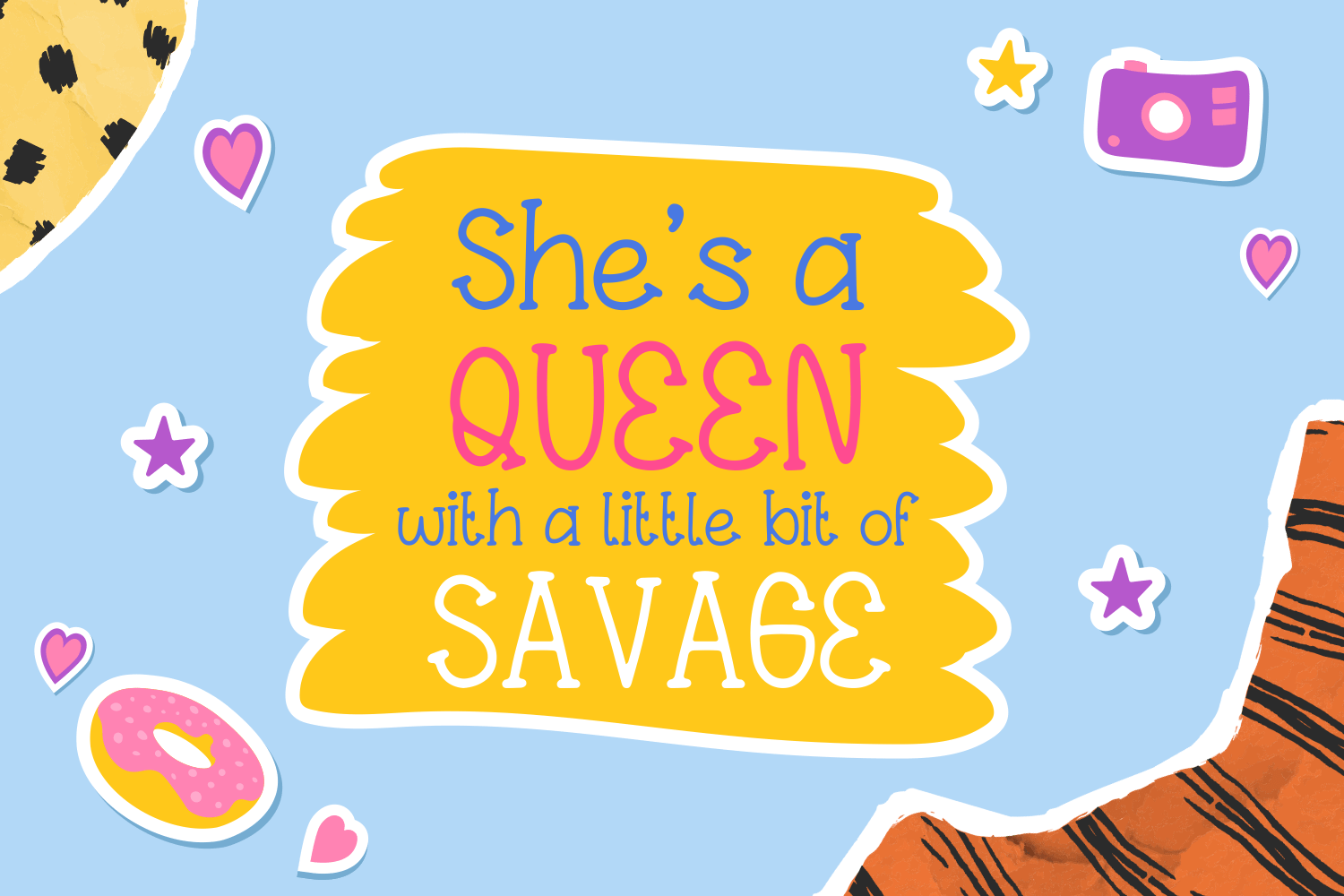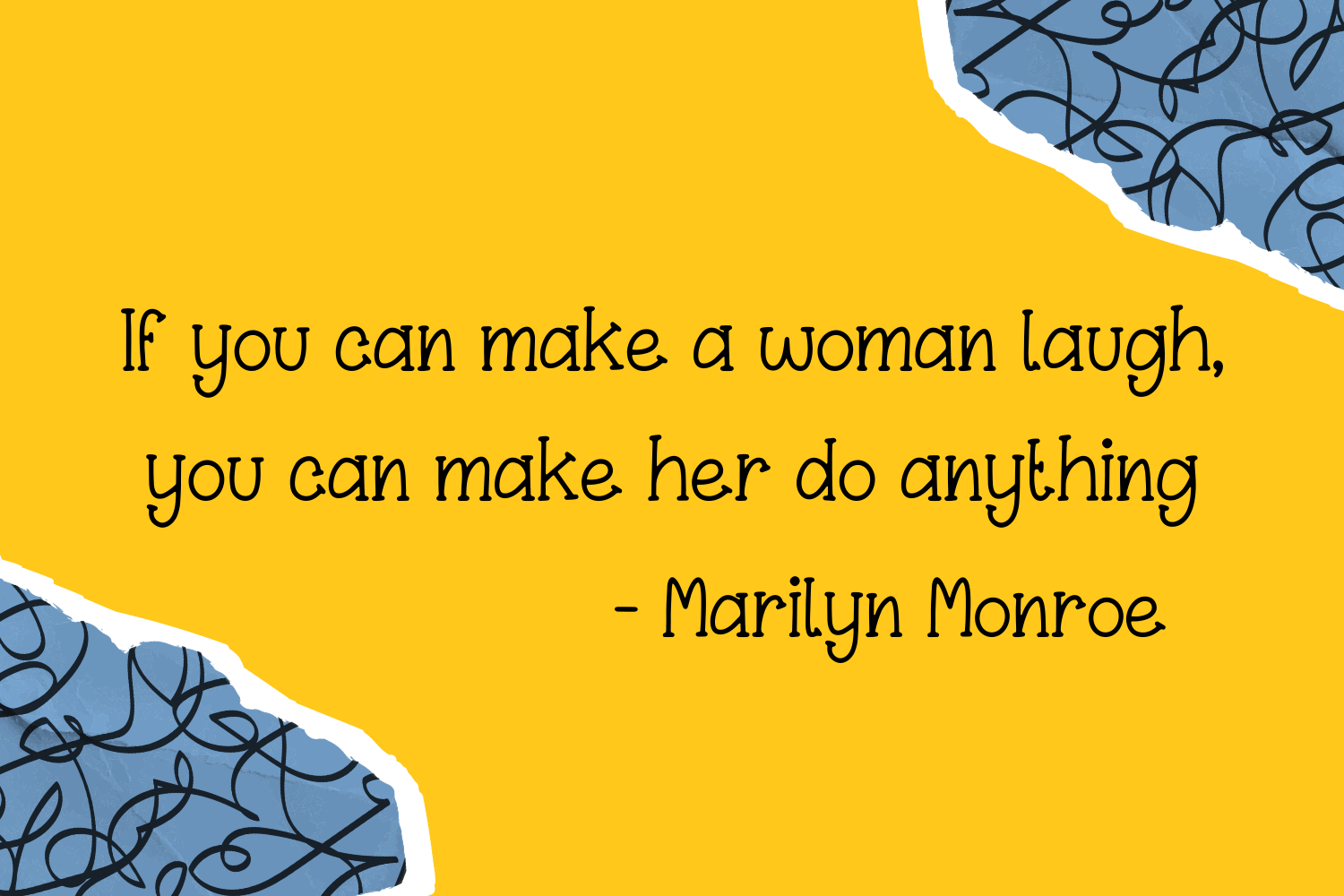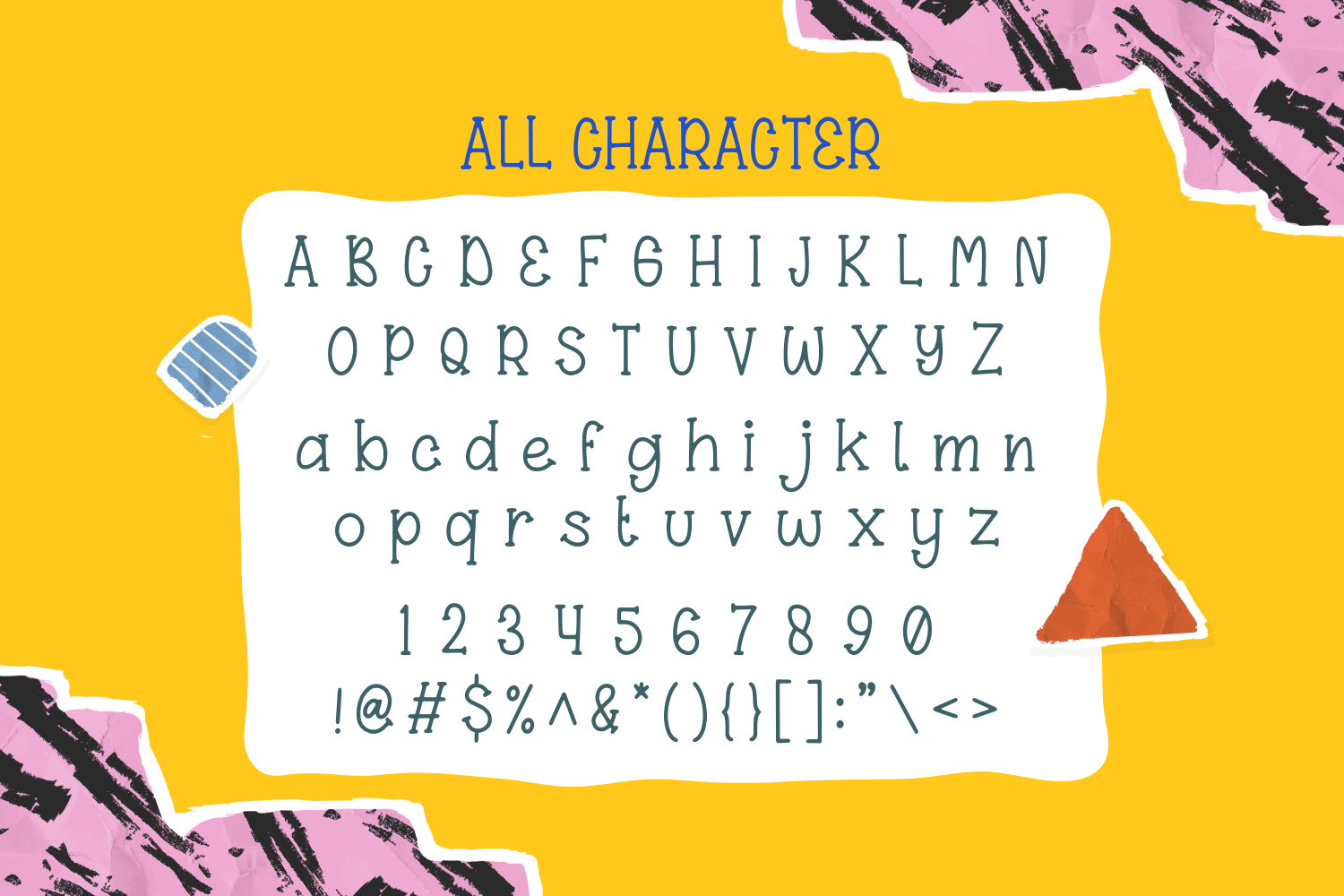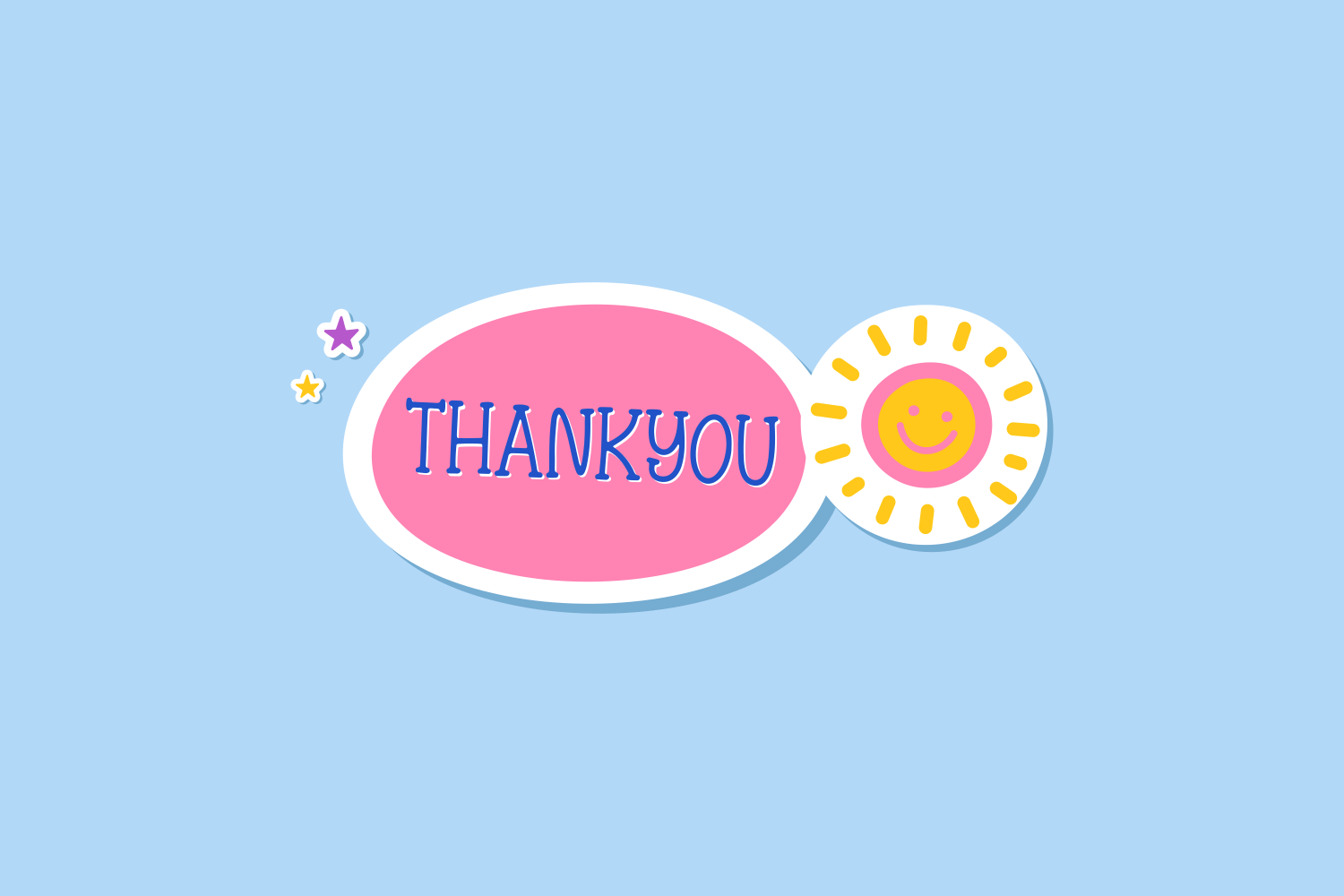
Queen Sipur Font
Queen Sipur Display Font is a playful and friendly handwritten font. Suitable to a wide variety of designs due to its neat and simple style, this font has the potential to become your favorite go-to font, no matter the occasion!